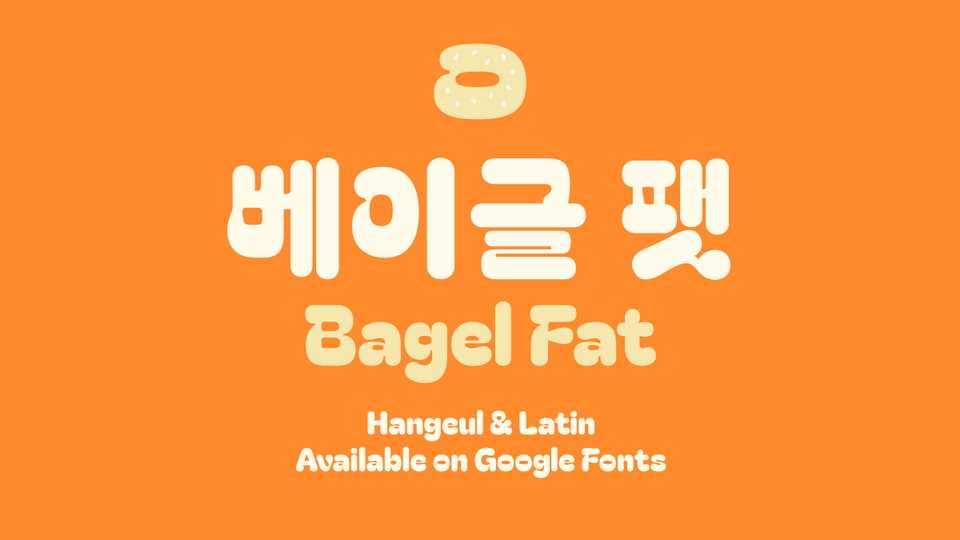
Download Bagel Fat font, a very heavy typeface with rounded details. By these rounded corners, the overall mood of Bagel Fat font is cute and lovely which is inspired by bread, pastries and sweets.
Designer: Kyungwon Kim